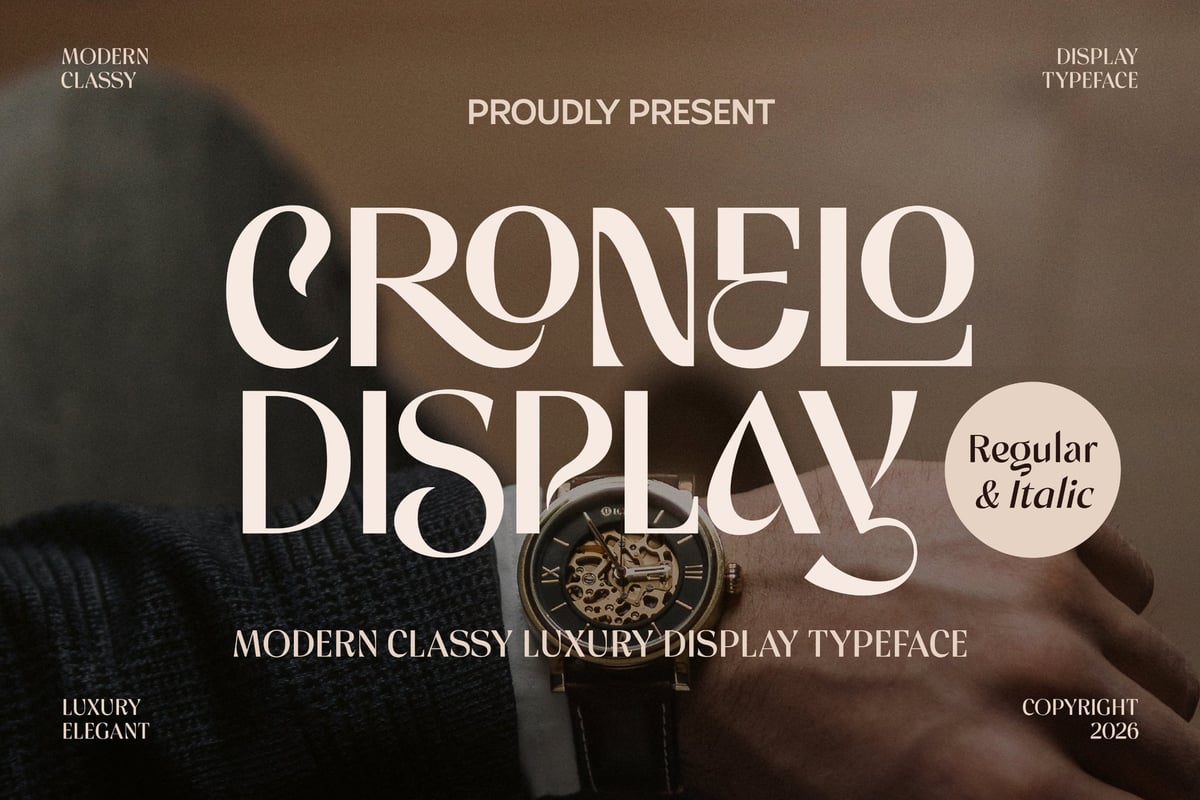
Cronelo Display - Elegant Duo Typeface
Cronelo Display is the modern luxury serif that transforms brands, editorials, and packaging into something unmistakably premium.
Cronelo Display is a sophisticated high-contrast display typeface built for designers who demand elegance without compromise. Its refined letterforms, graceful curves, and beautifully crafted details make it a natural fit for upscale projects that need to leave a lasting impression.
Available in both Regular and Italic styles, Cronelo Display offers creative flexibility to build distinctive, memorable typographic compositions across a wide range of applications — from logos and branding to invitations, posters, website headers, signage, editorial layouts, and premium packaging.
- Regular and Italic styles
- Ligatures and alternates for enhanced typographic flexibility
- Multilingual language support
Whether you're crafting a luxury brand identity or designing a high-end editorial spread, Cronelo Display brings timeless sophistication to every project.